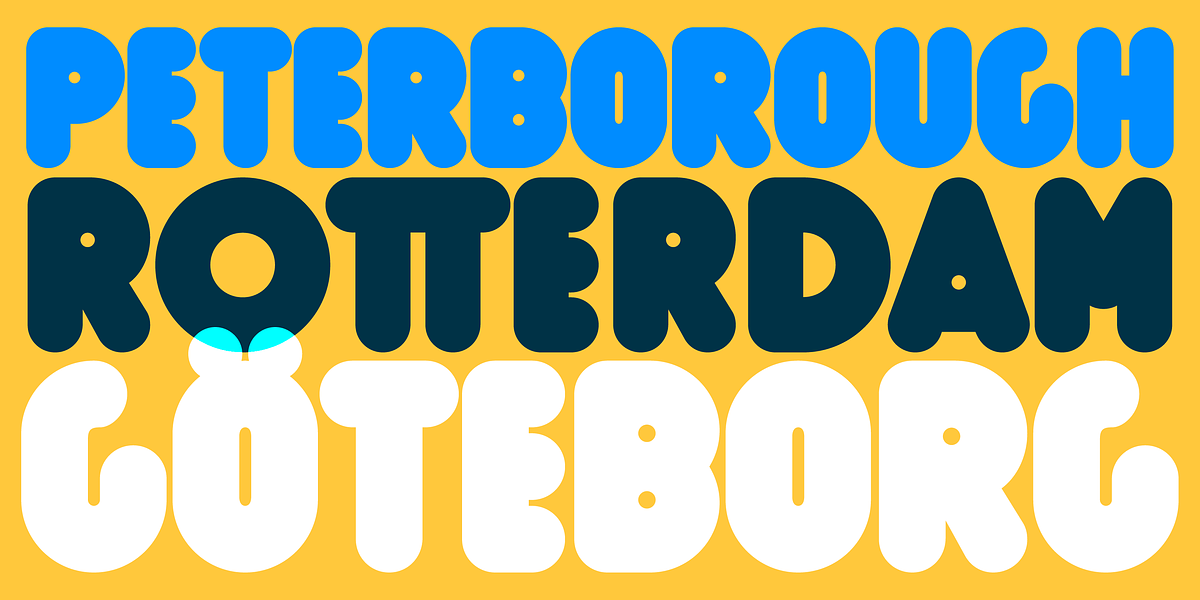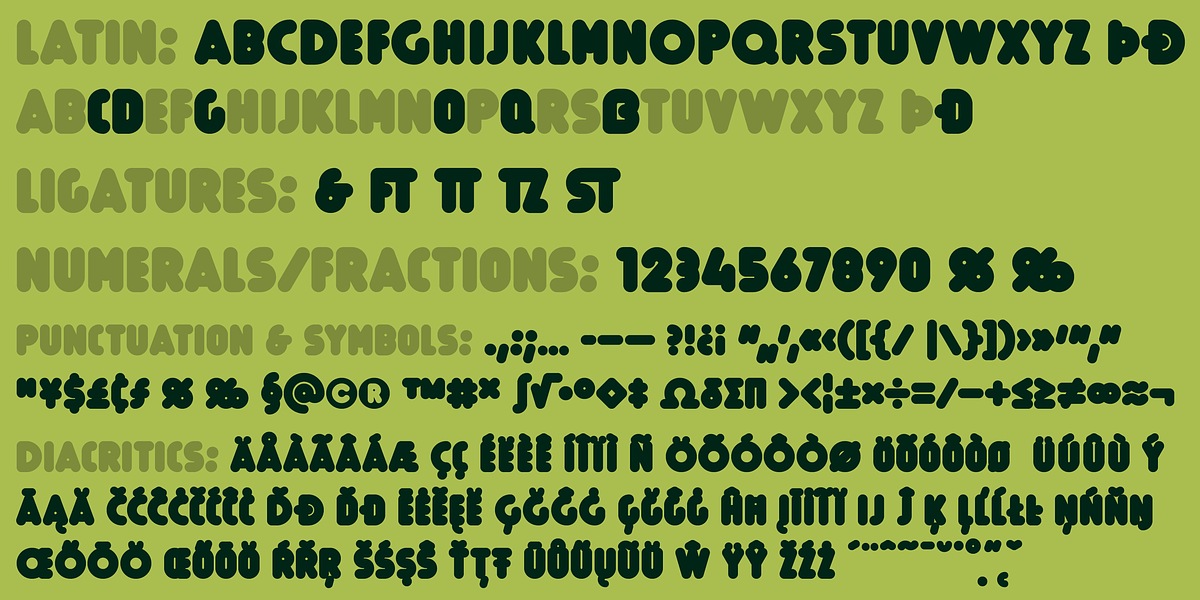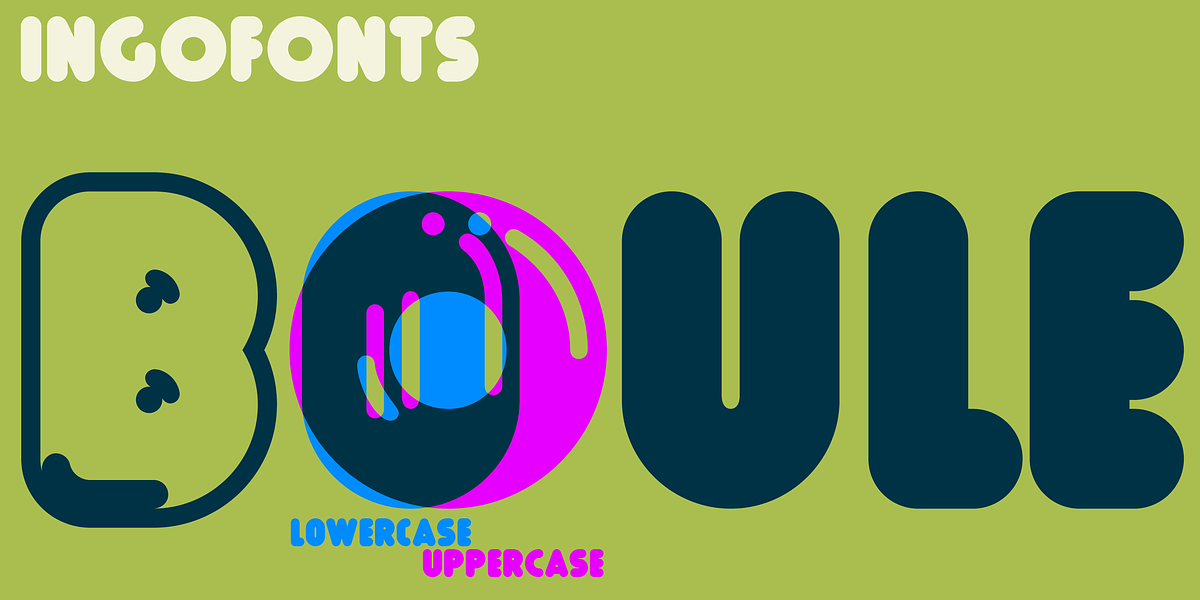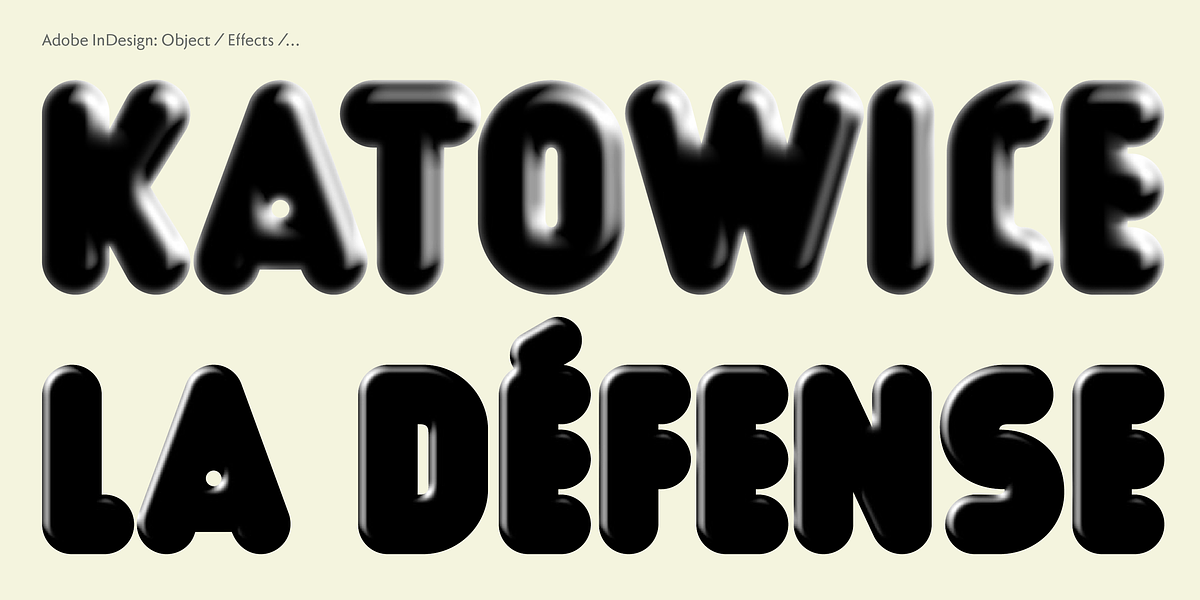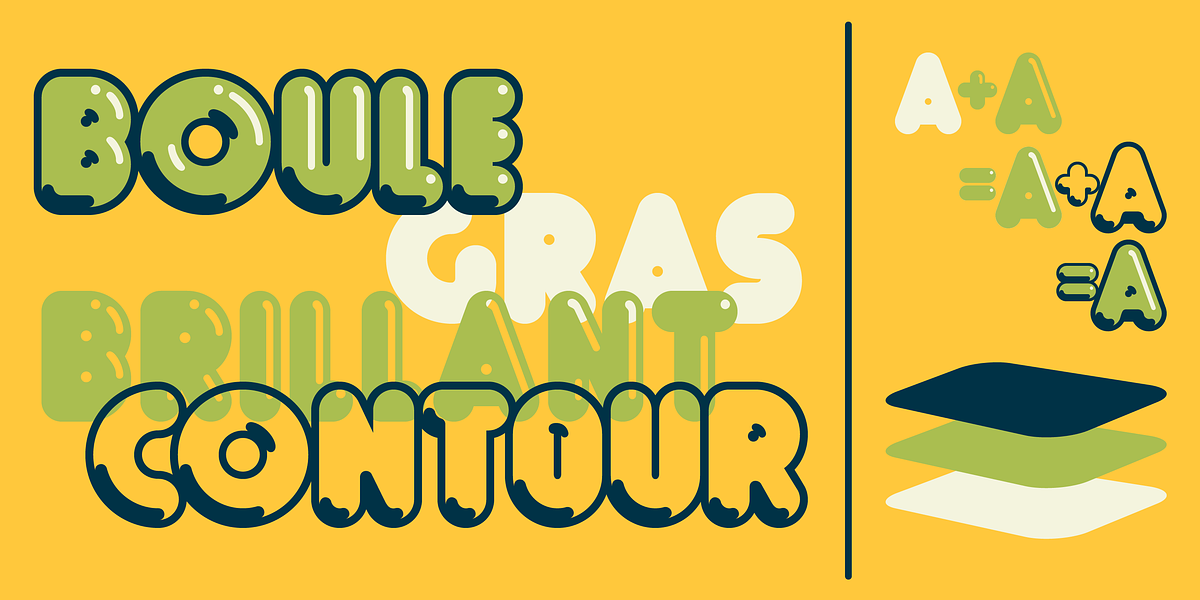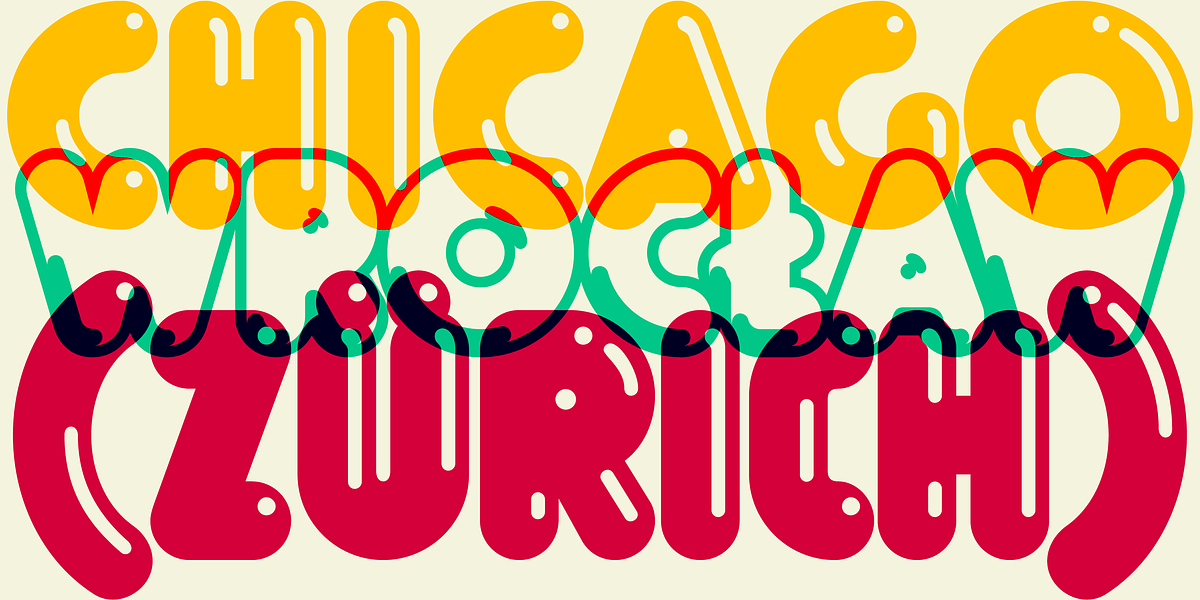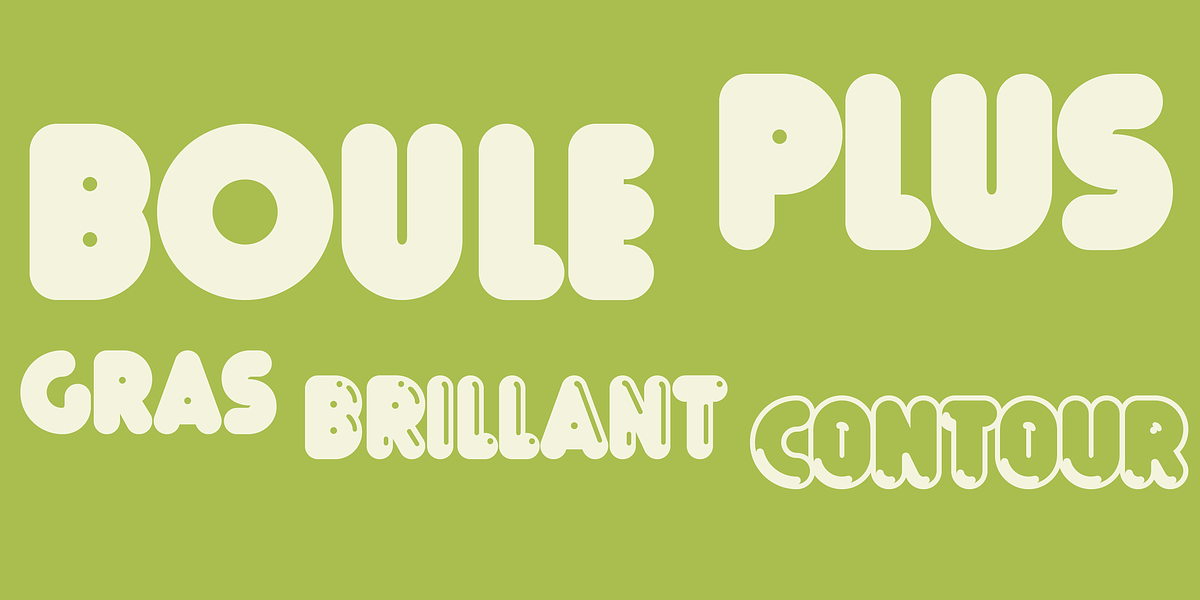
Boule Plus
BOULE is a bold geometric sans-serif font characterized by its rounded letterforms. It consists solely of uppercase letters and is designed for visual impact in display applications like headlines or branding. The name BOULE, meaning 'ball' in French, reflects the font's globular appearance which lends itself well to three-dimensional effects.